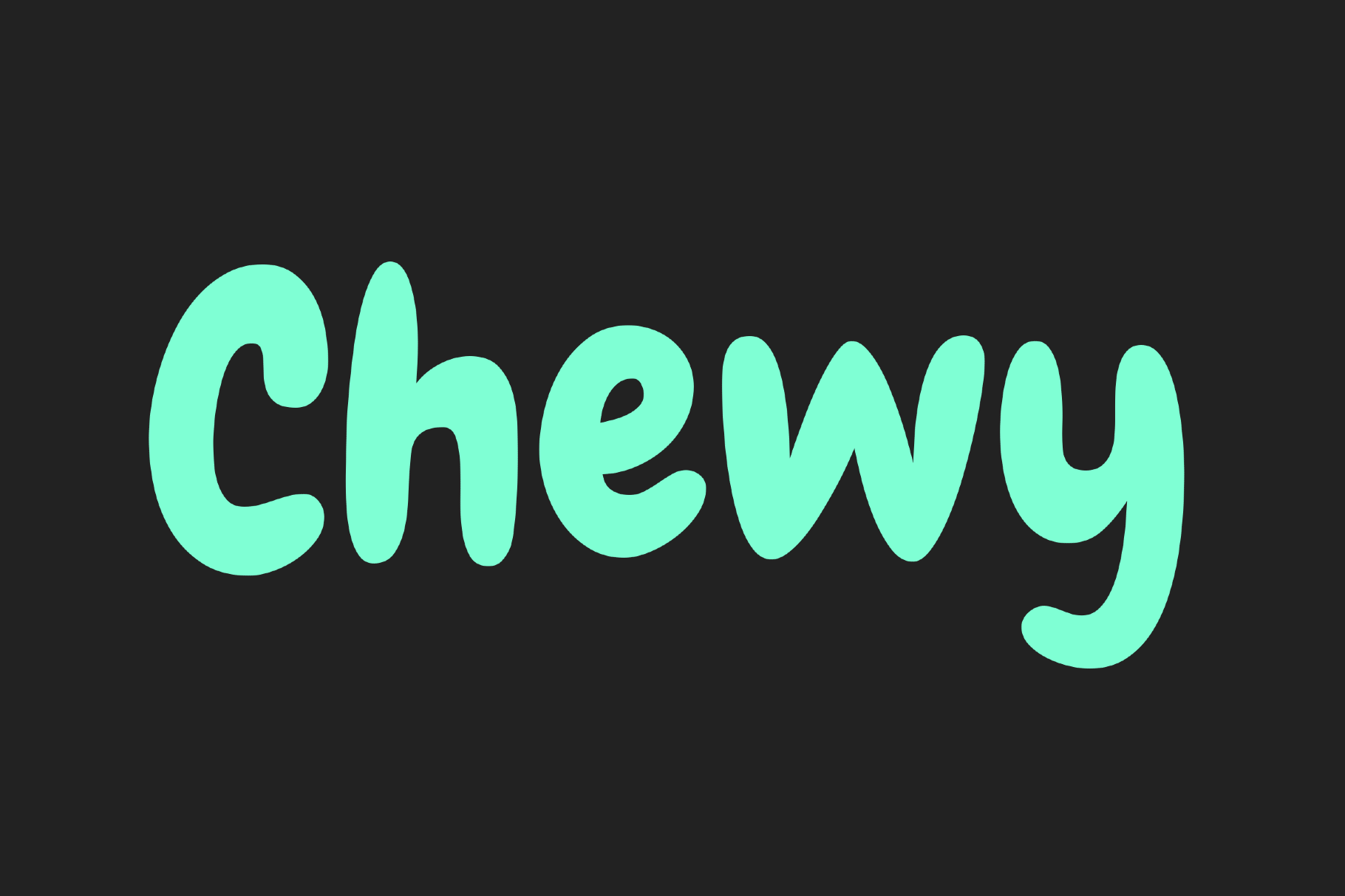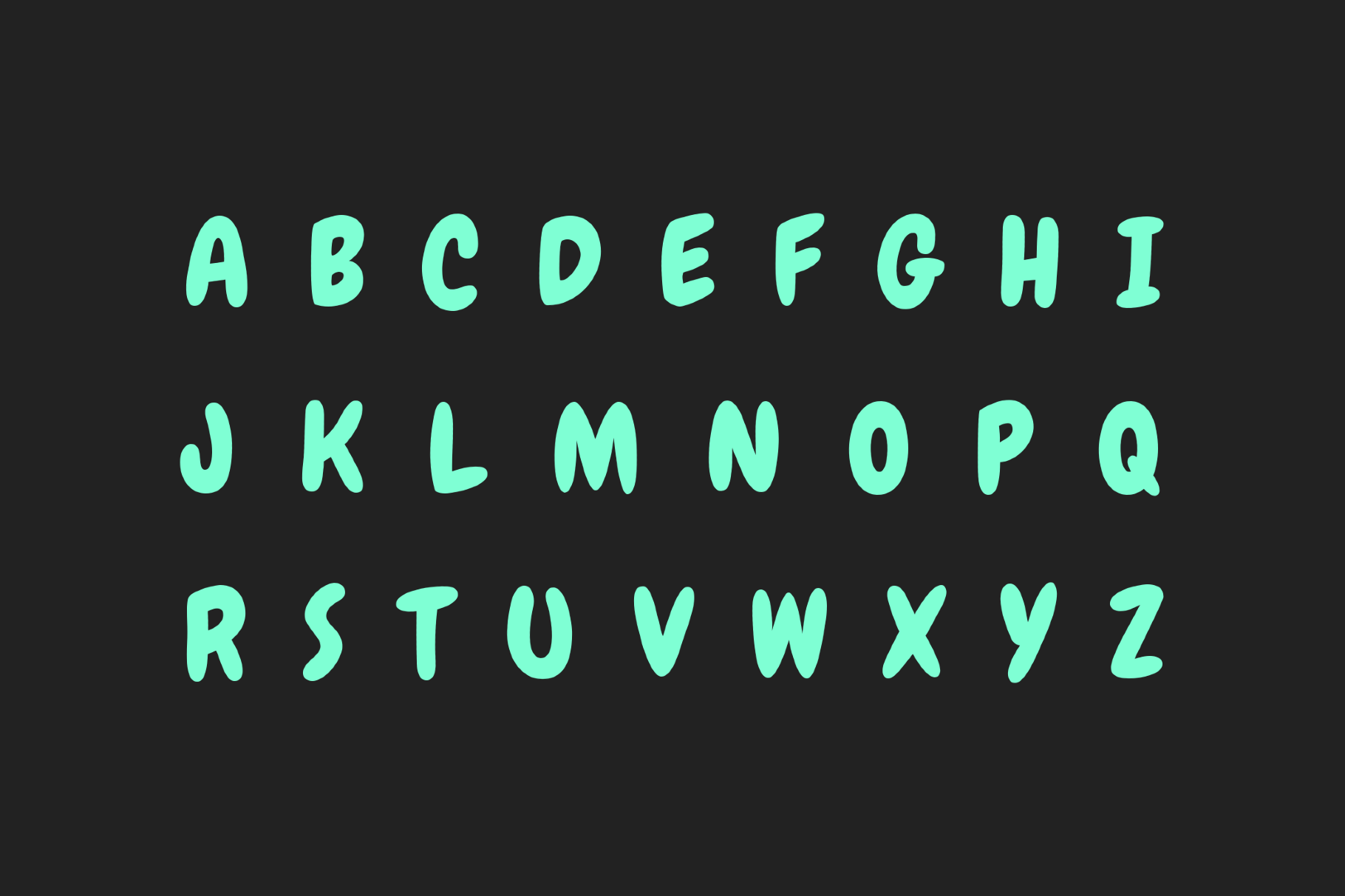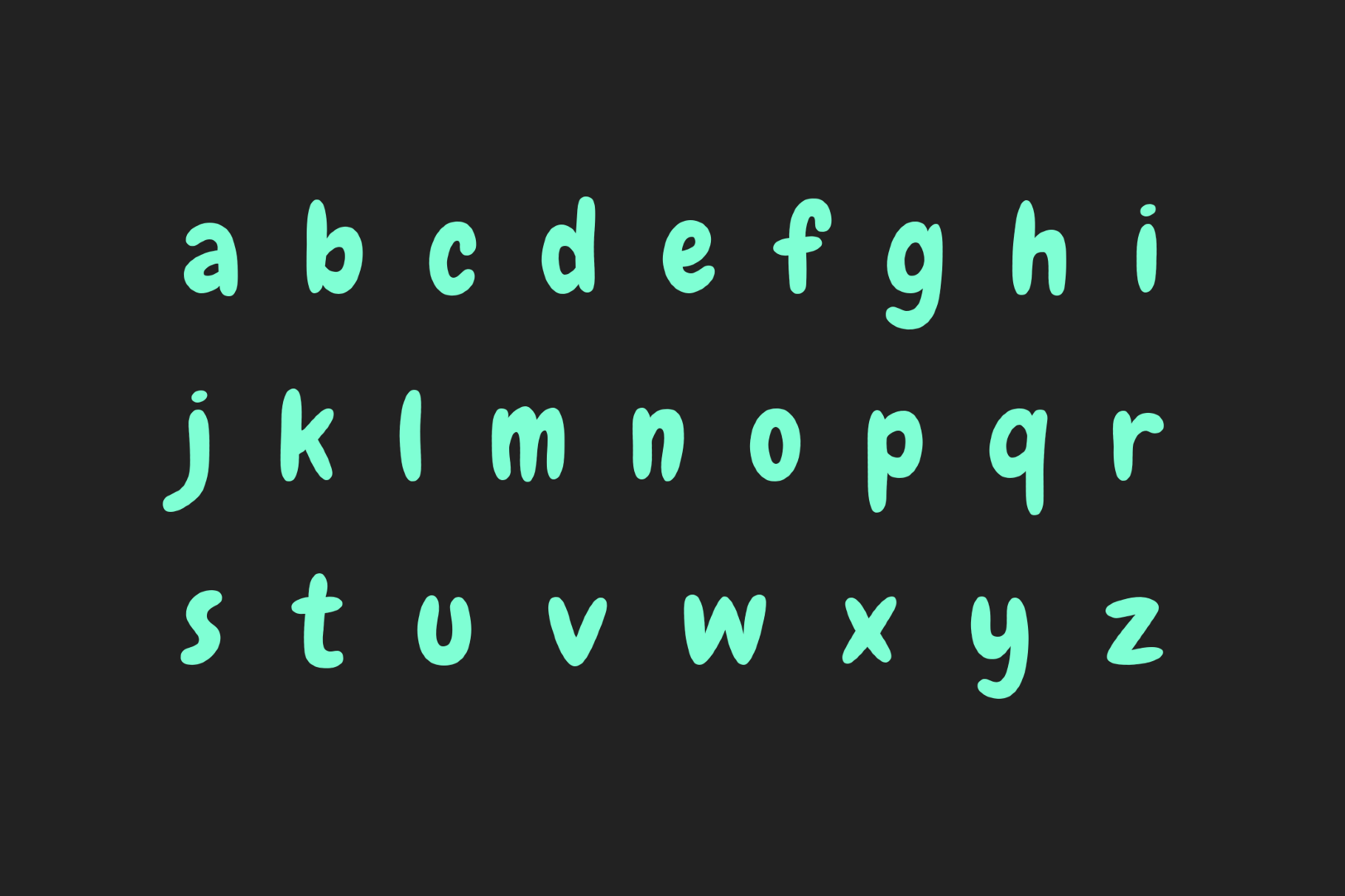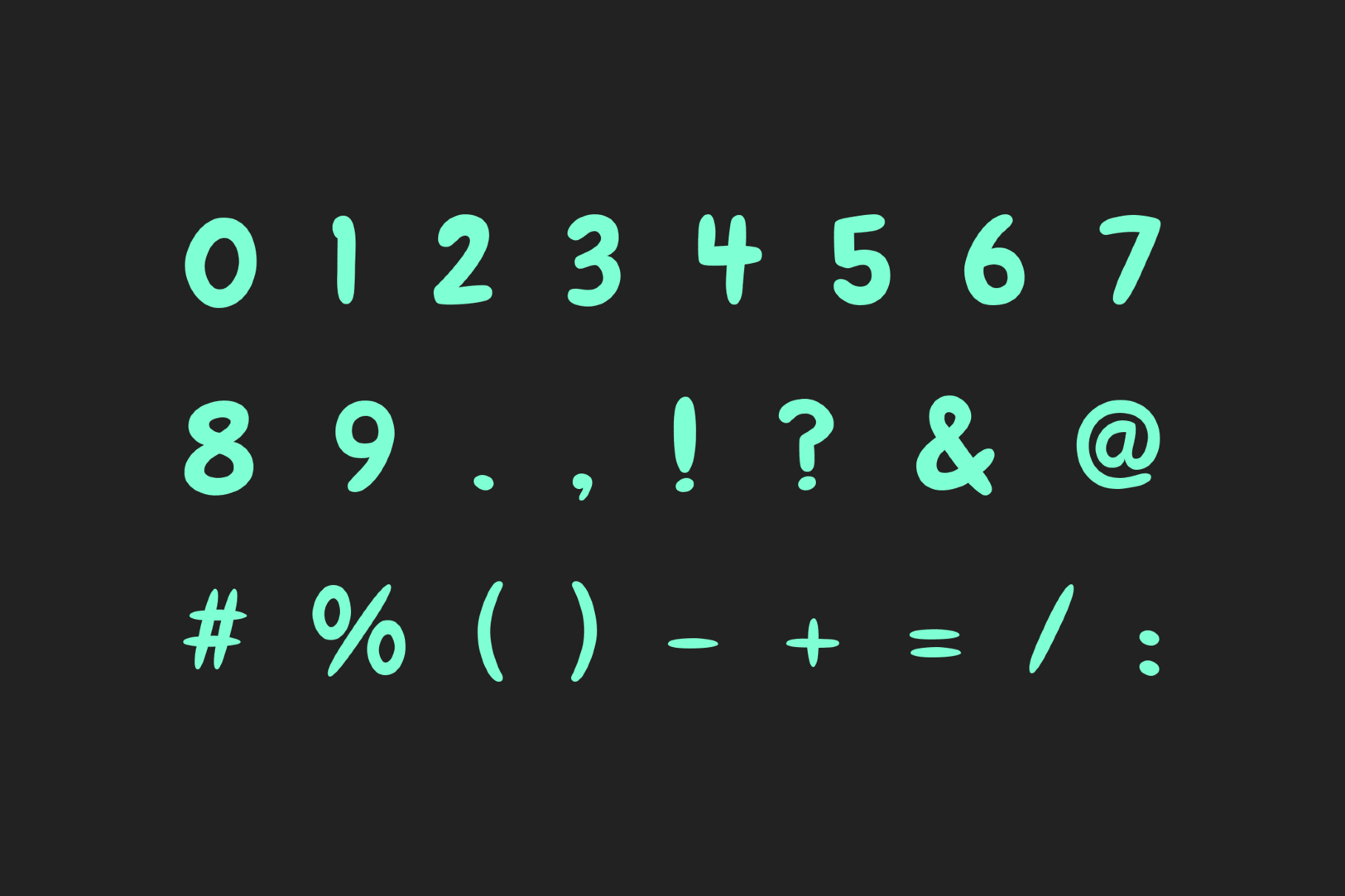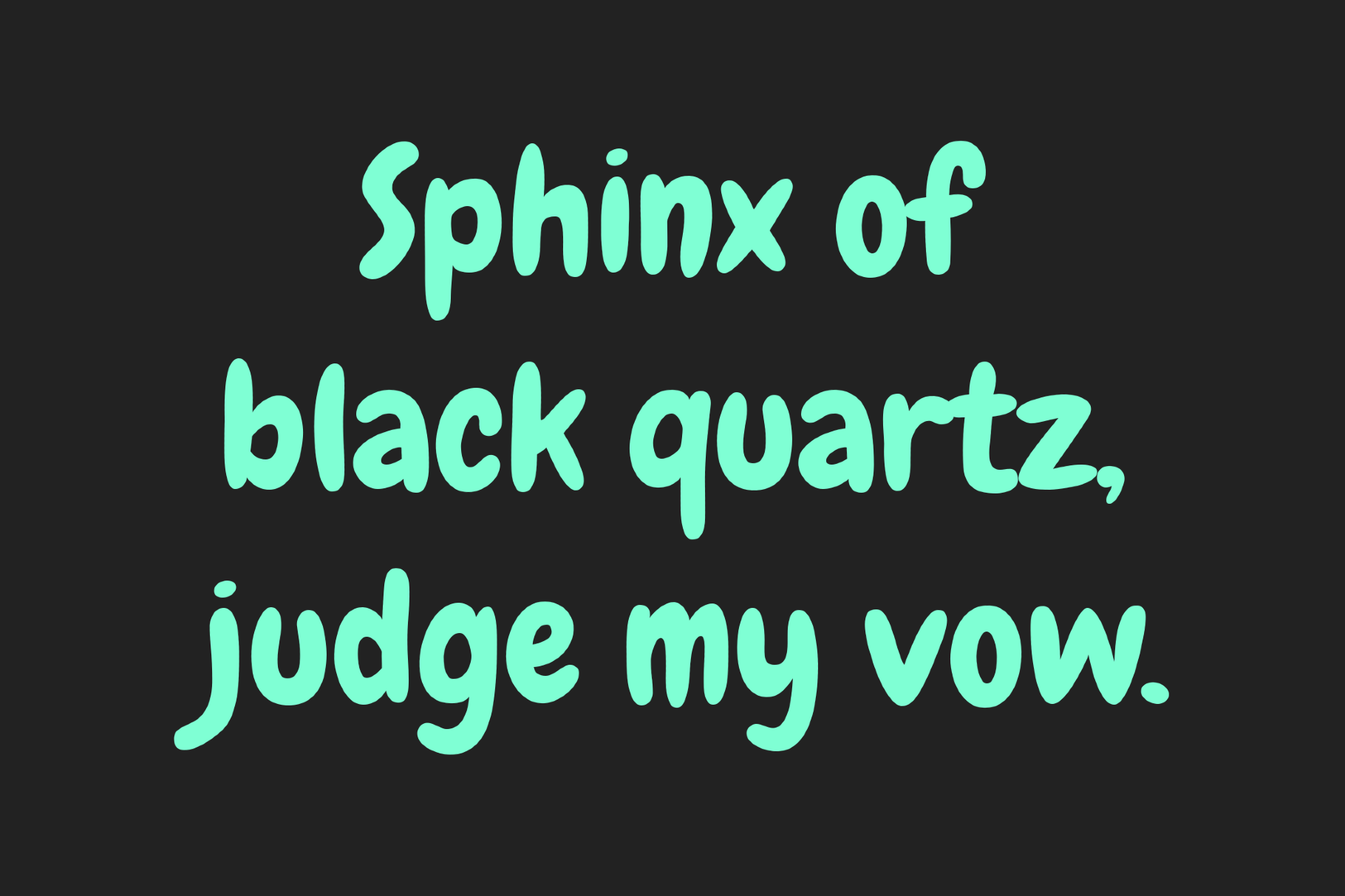
Chewy 90s Kids Font
Chewy has the bouncy, candy-counter energy of 1990s children's television title sequences, novelty food packaging, and birthday party supply graphics. Its exaggerated rounded curves and informal rhythm keep every word feeling approachable and playful without collapsing into decoration. It works for children's branding, activity packaging, social media graphics, event flyers, game UI, greeting card type, snack label headlines, and editorial titles aimed at younger audiences.